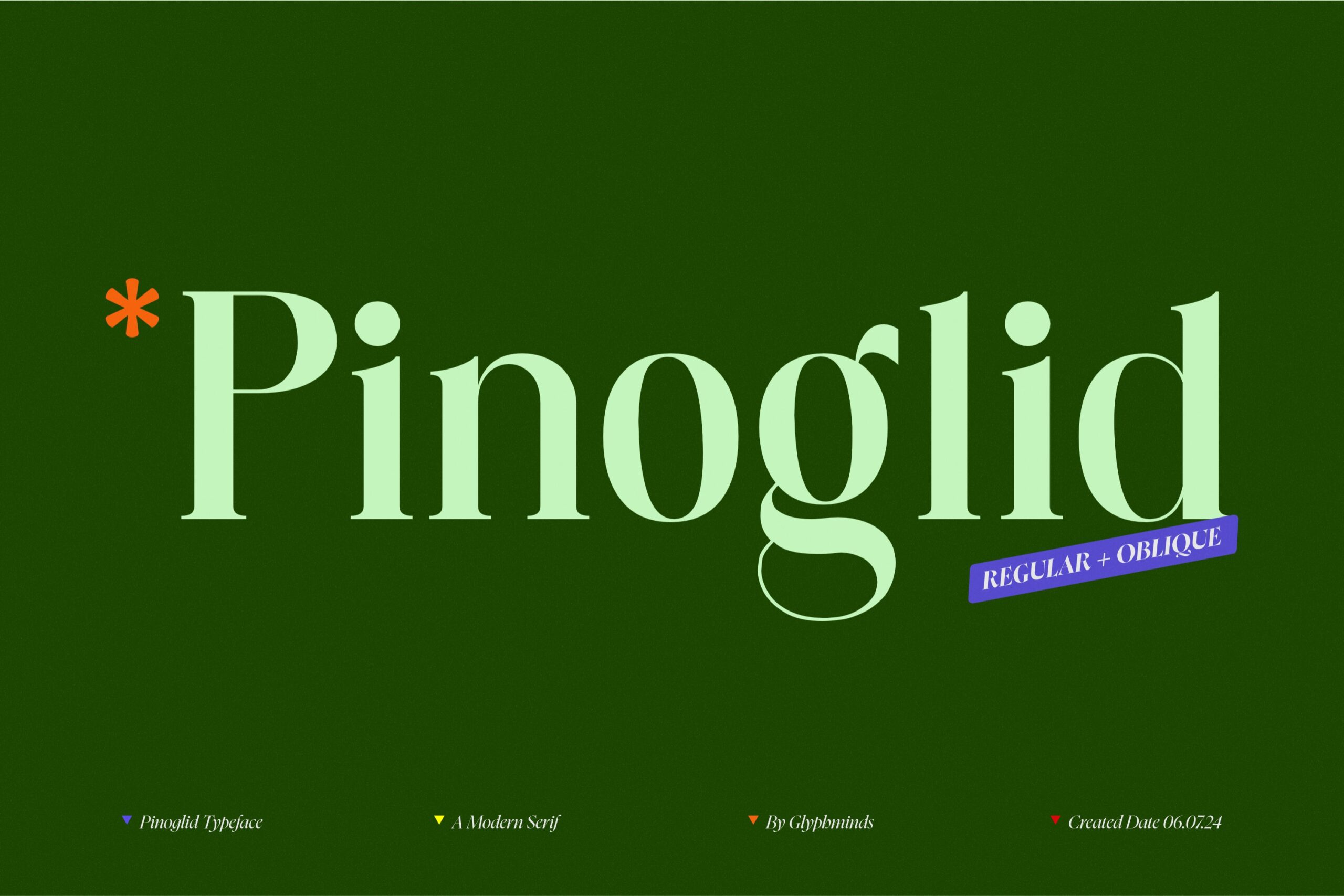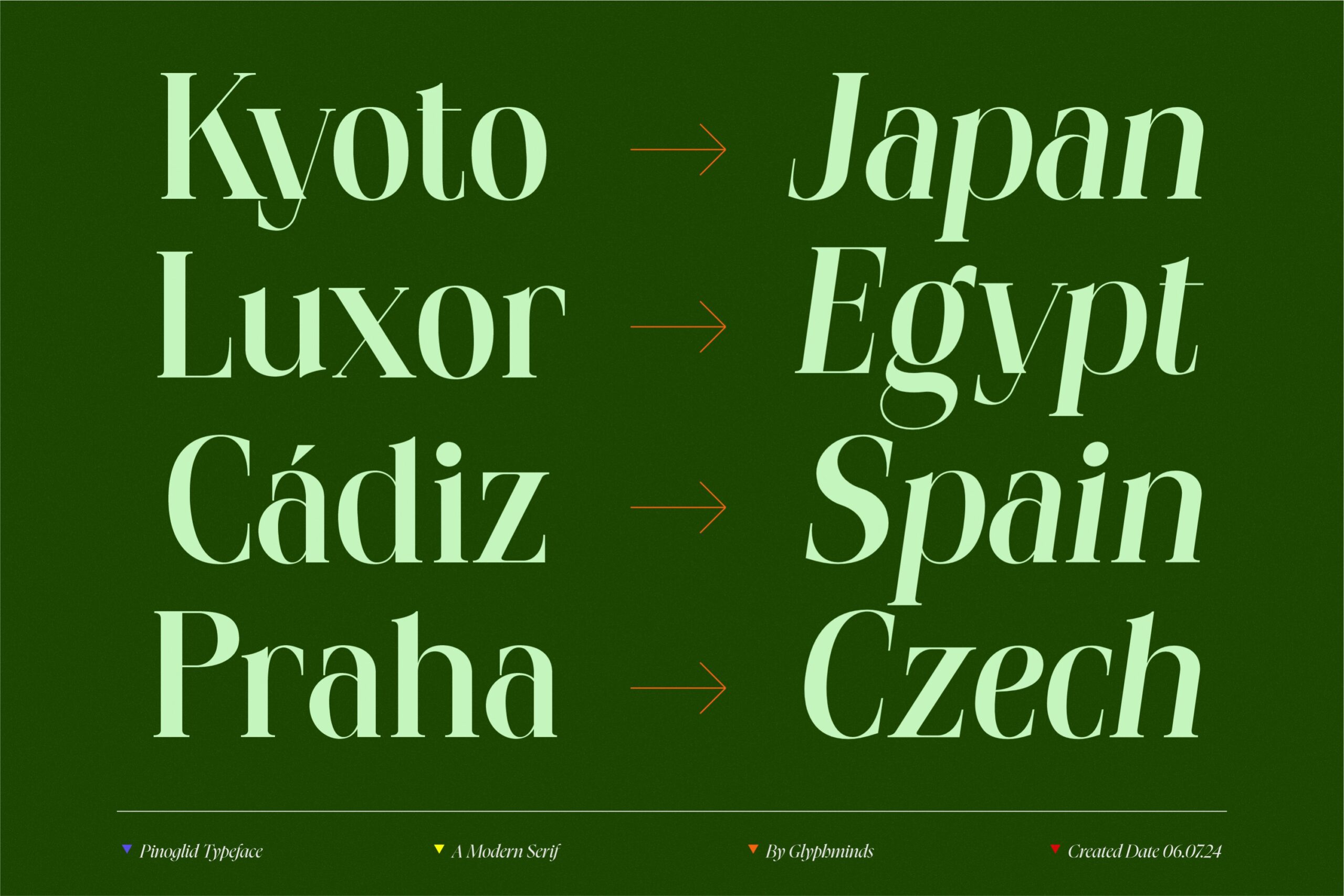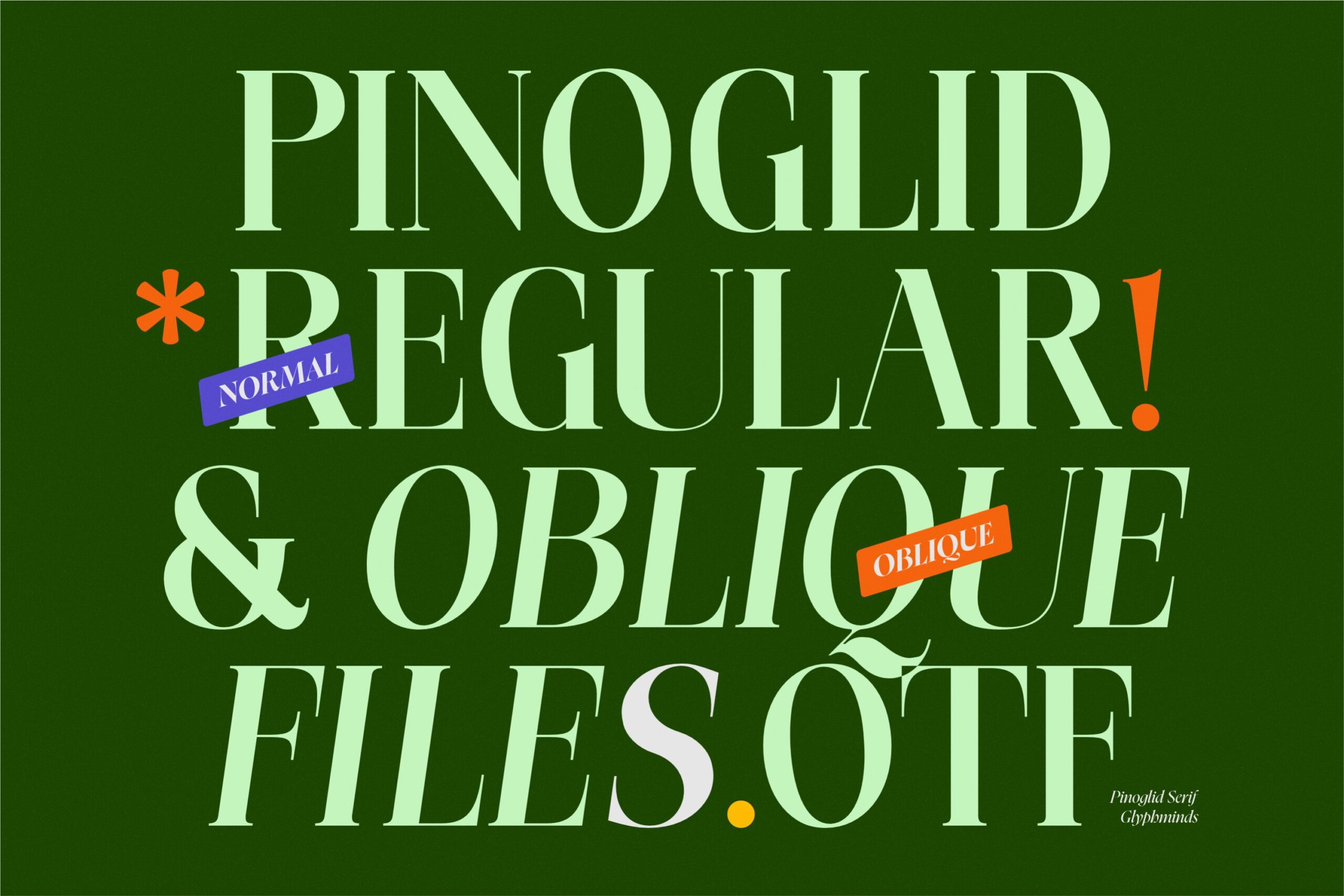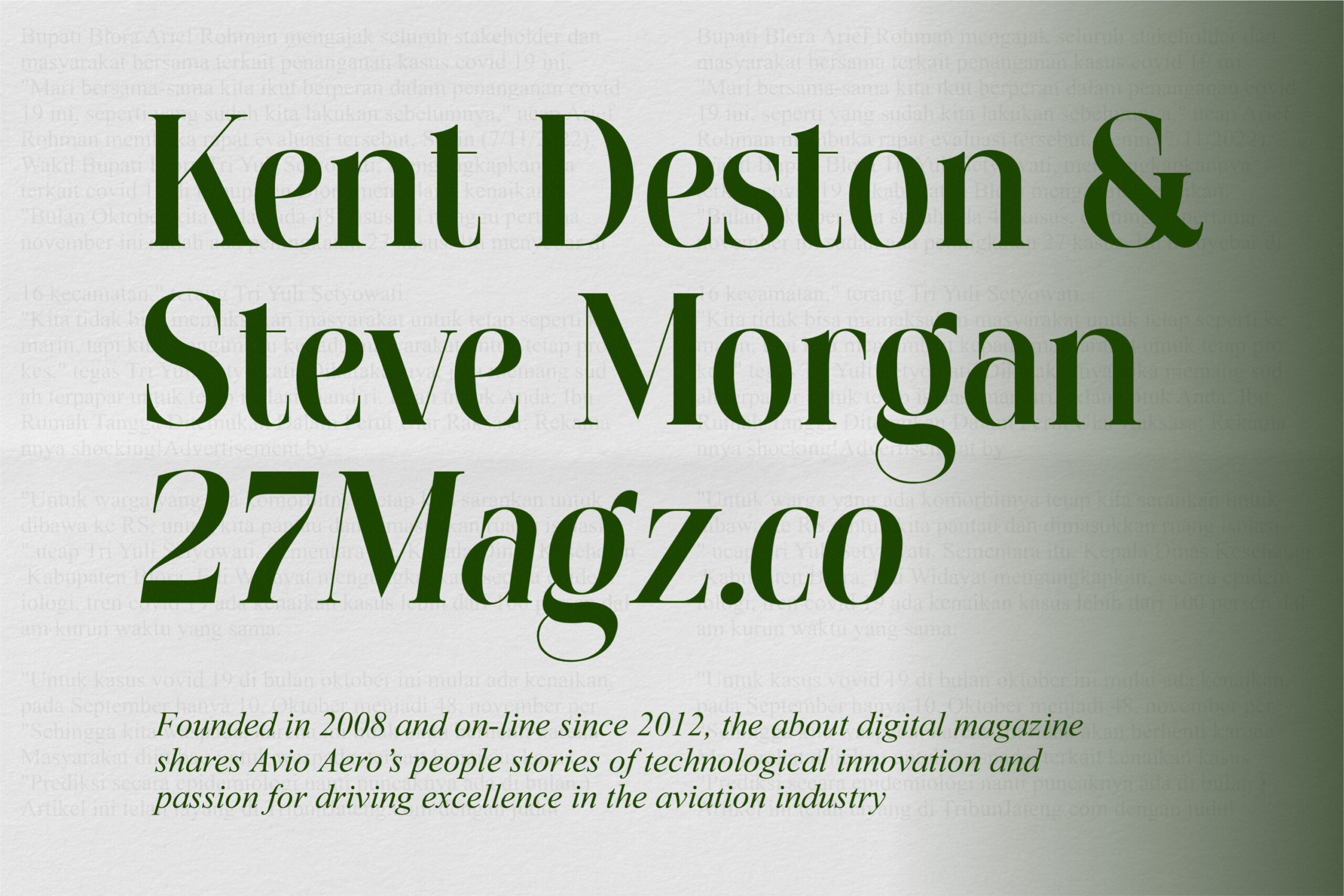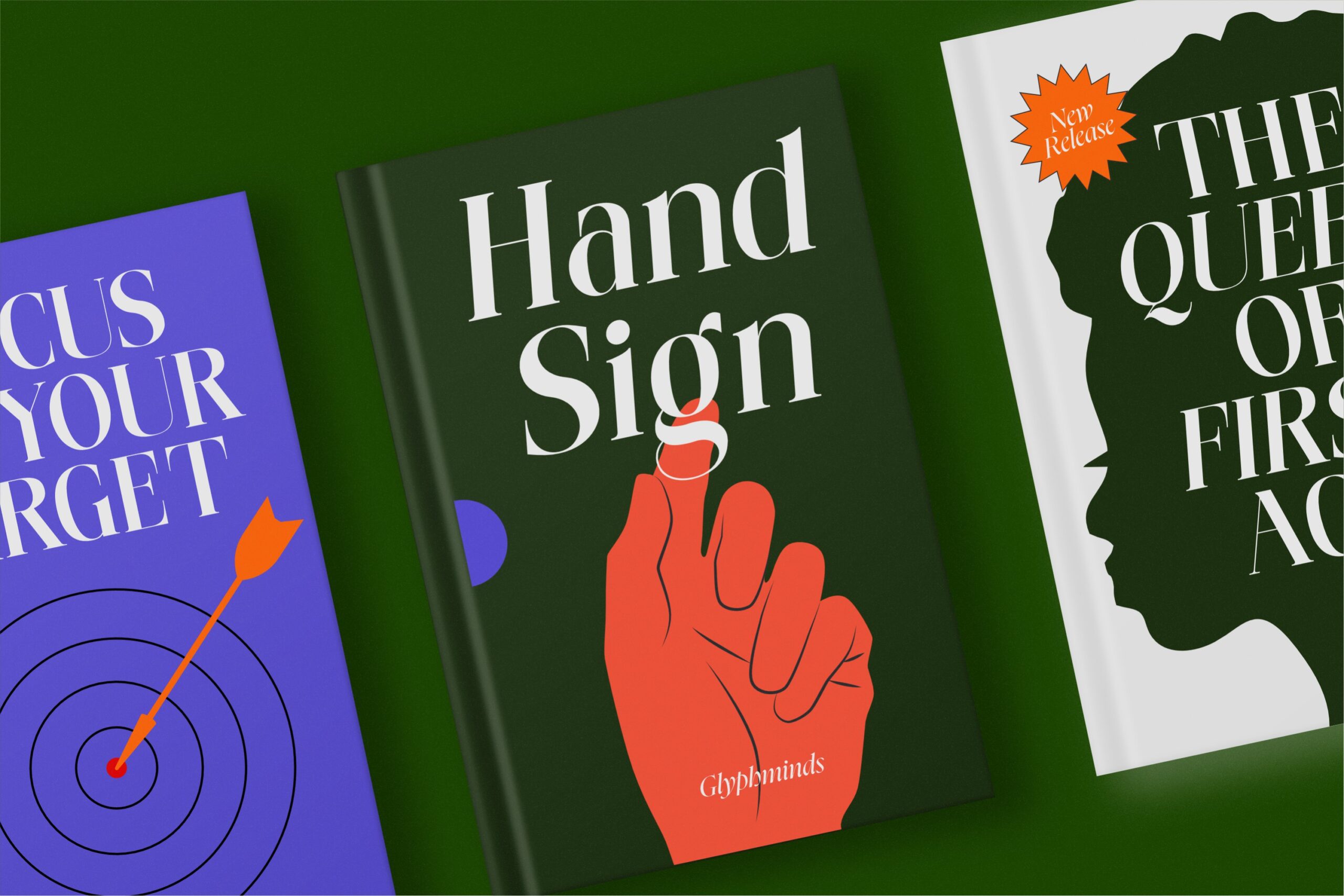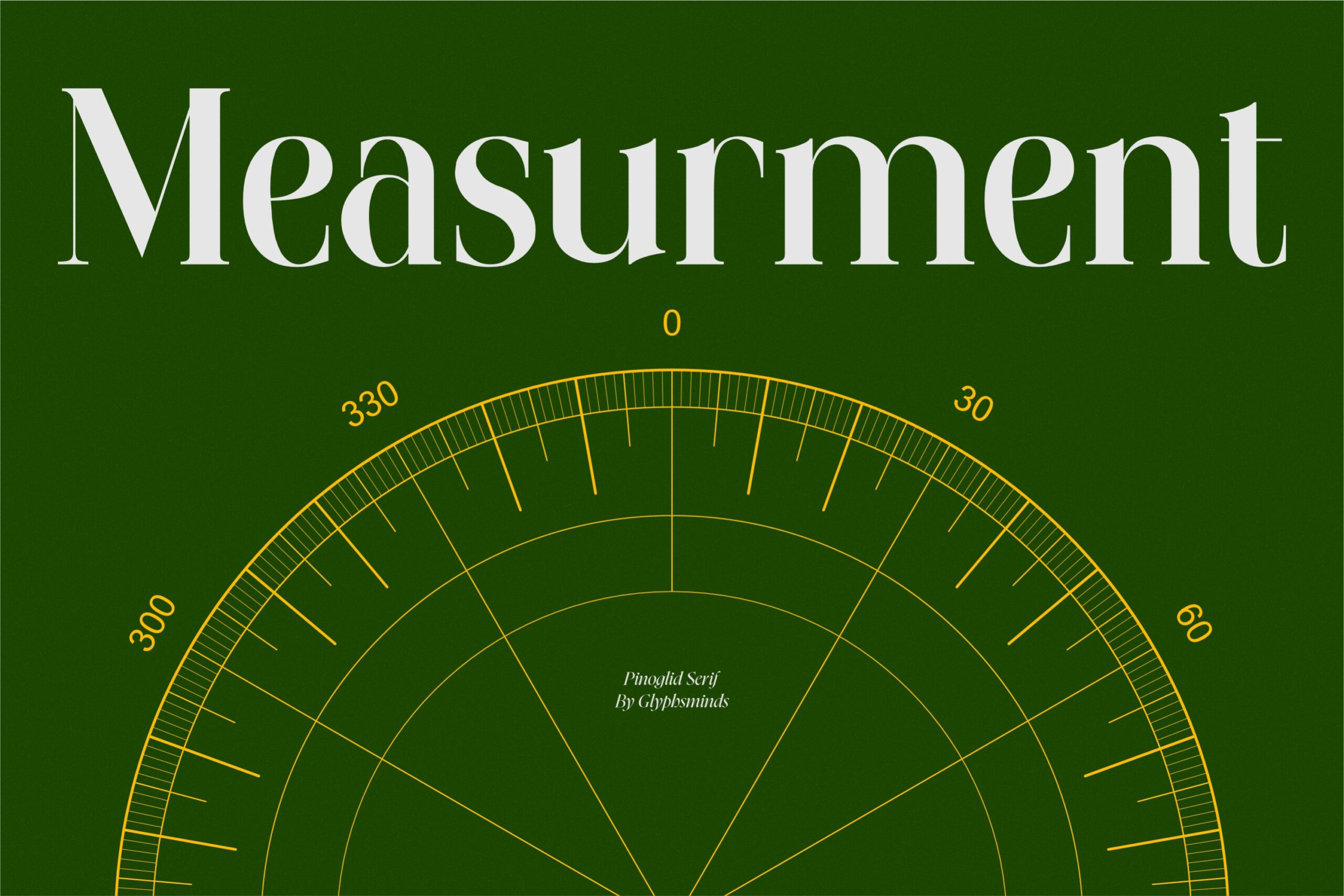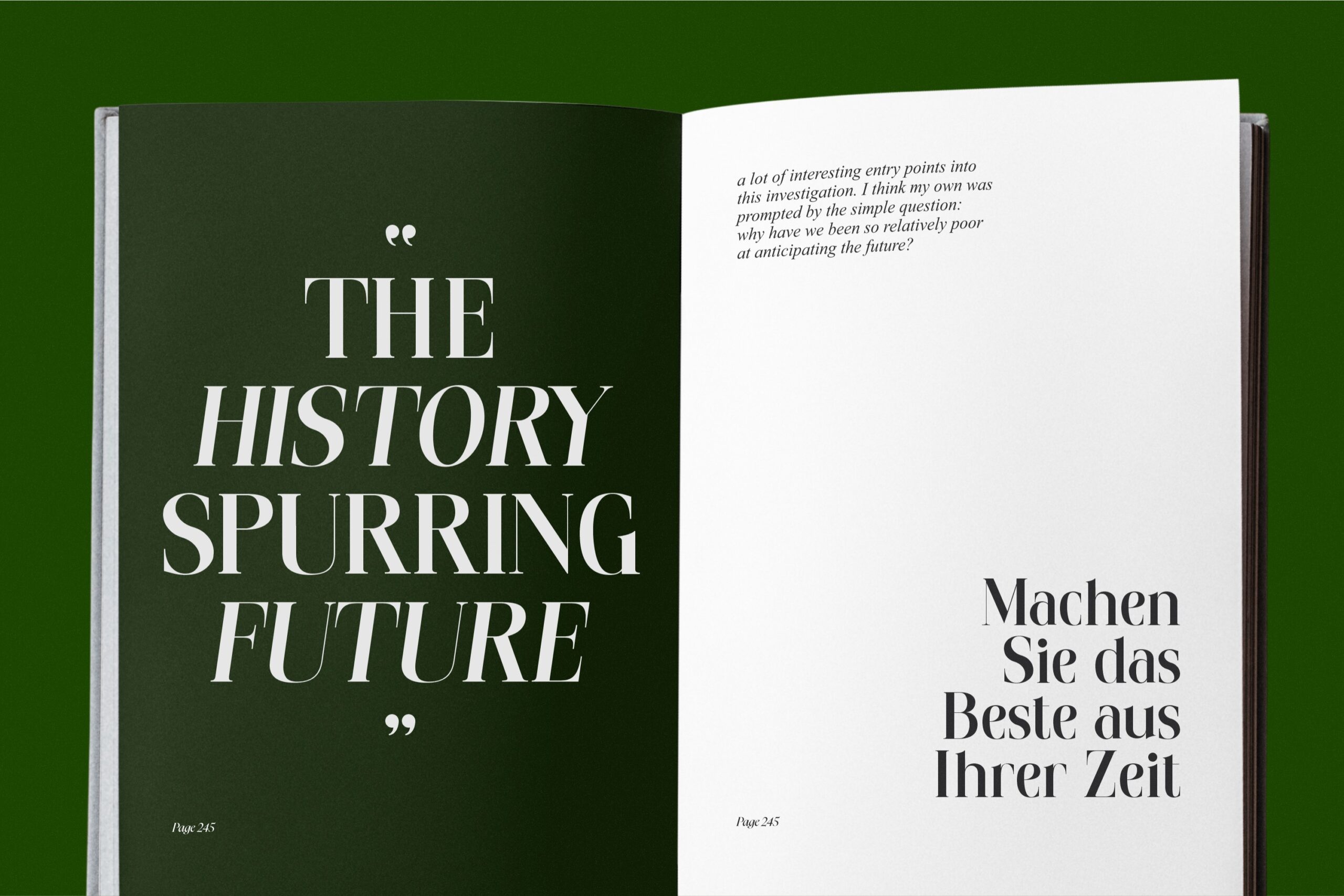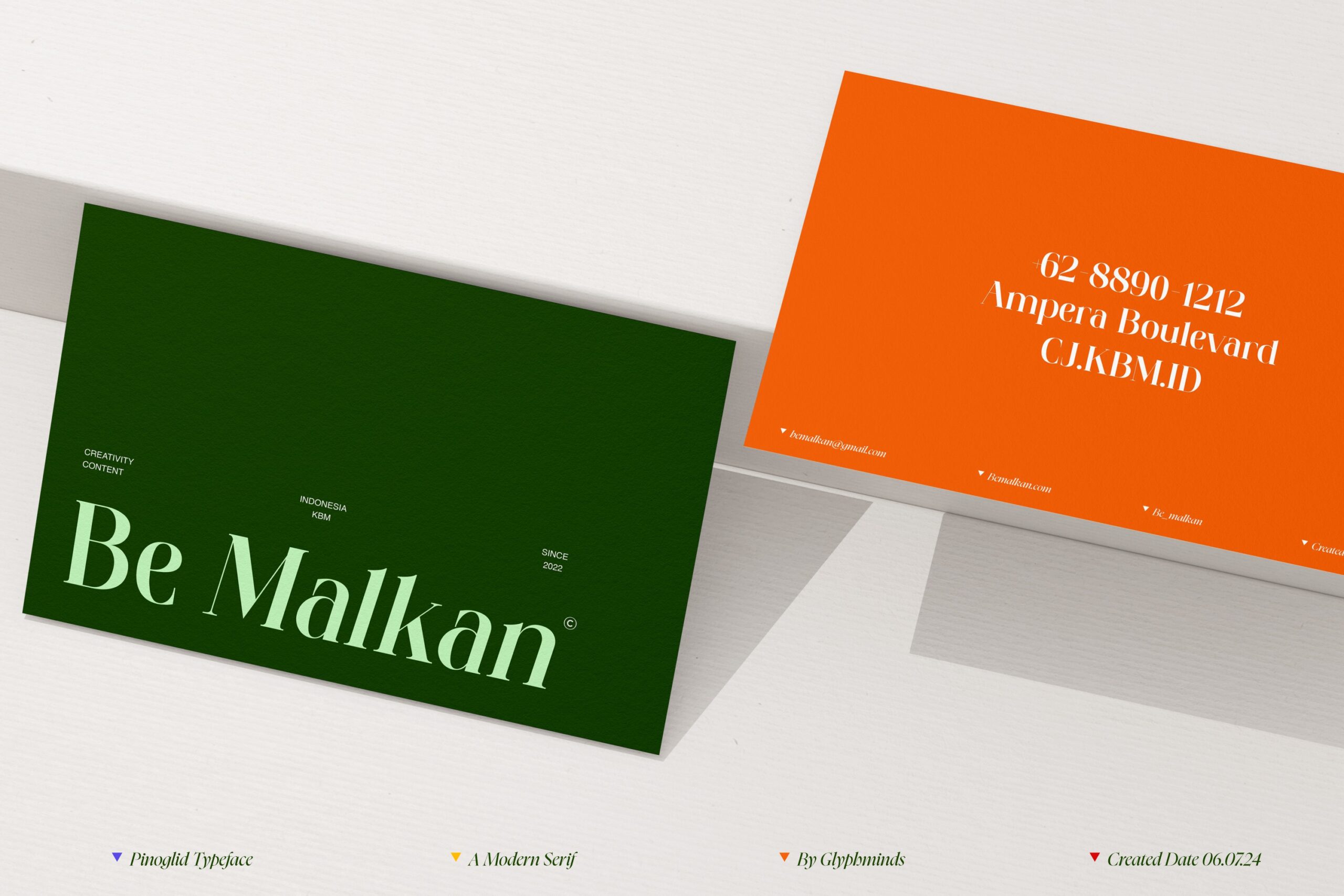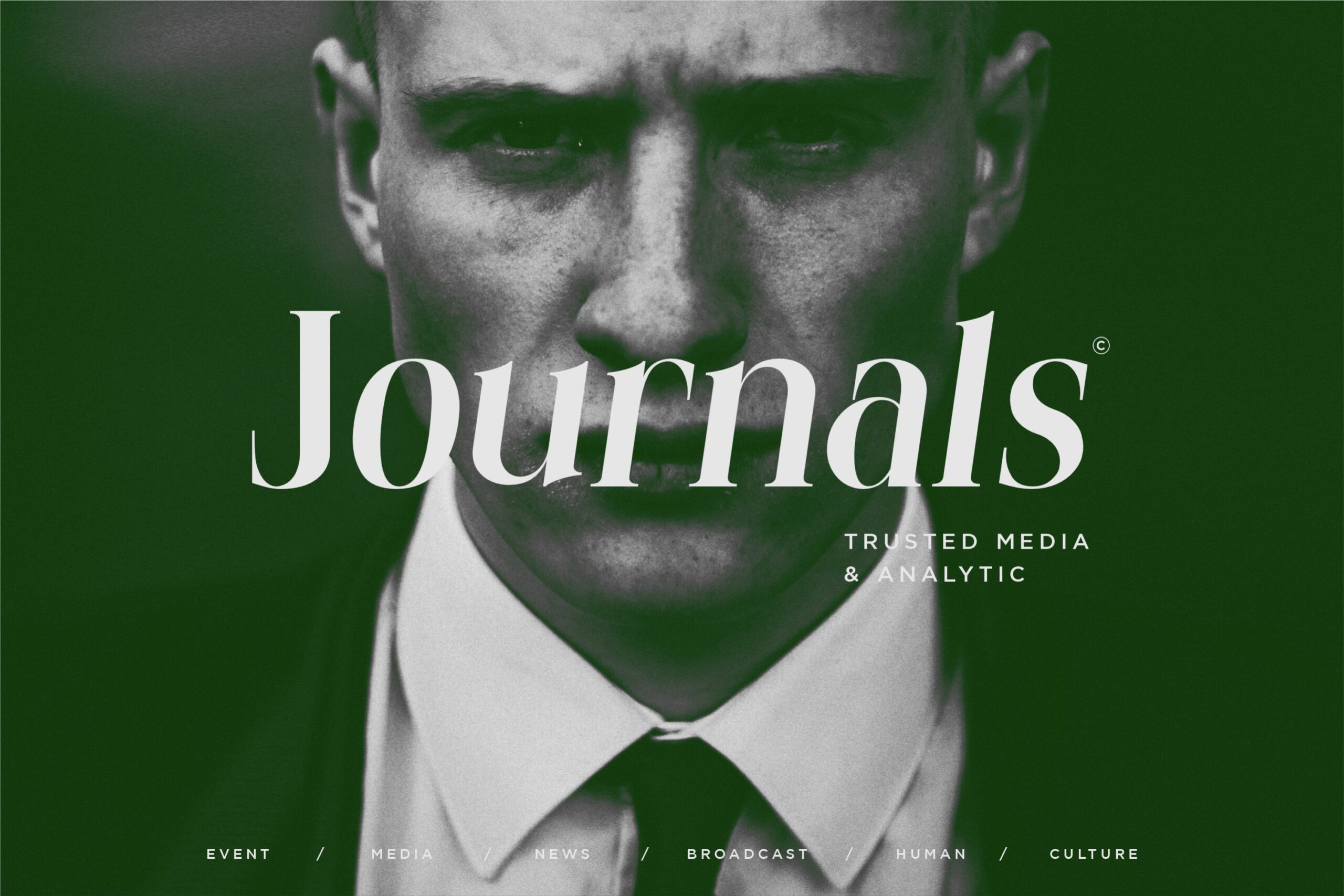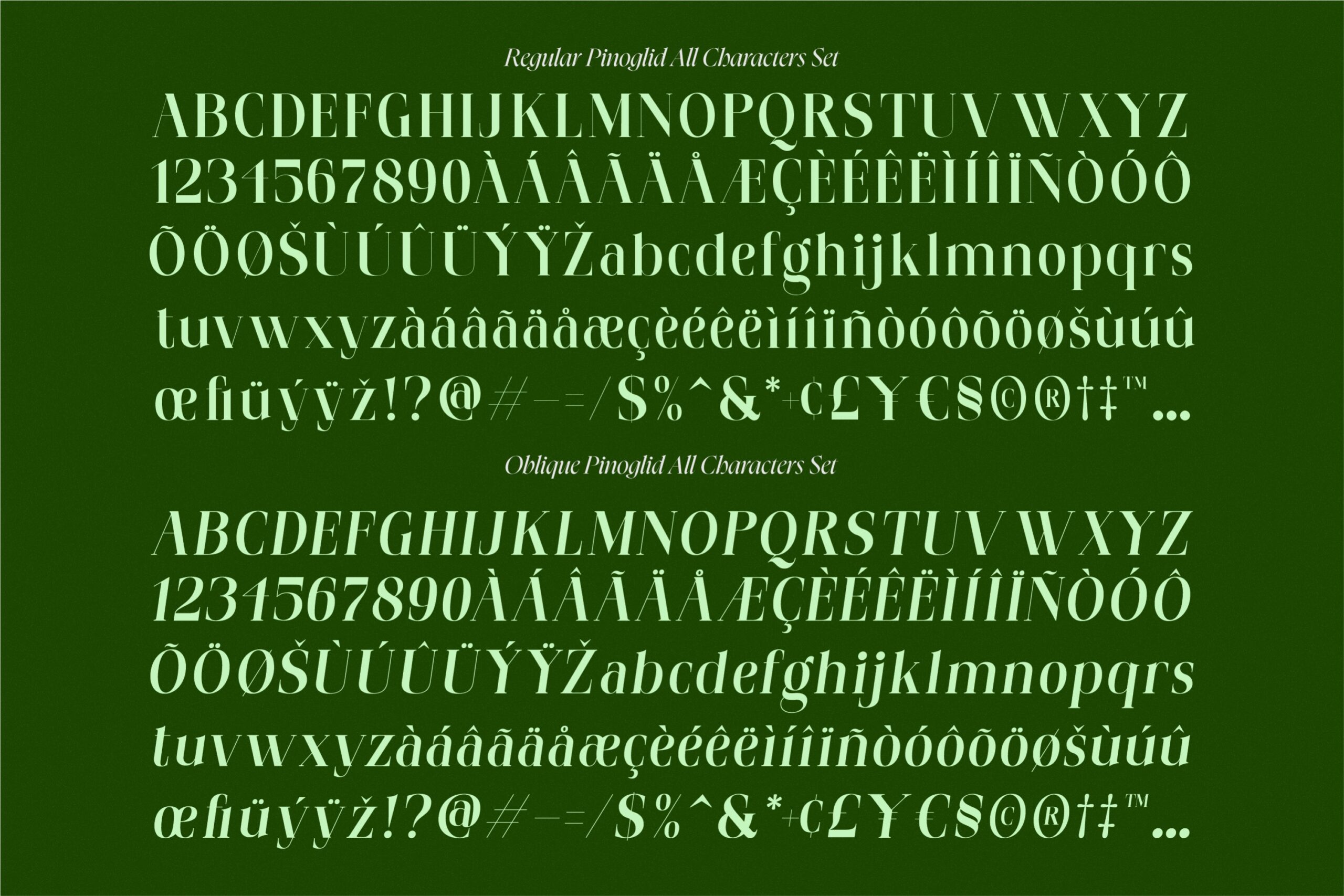
Pinoglid Oblique
Pinoglid
“Introducing” Pinoglid, a modern serif typeface that blends elegance and versatility. Designed by Glyphminds, Pinoglid comes in both regular and oblique styles, making it perfect for a variety of design projects. Whether you’re working on branding, editorial design, or web projects, Pinoglid offers a refined aesthetic that enhances readability and visual appeal. Created on 06.07.24, this typeface is a fresh addition to any designer’s toolkit. Elevate your designs with the timeless sophistication of Pinoglid.”